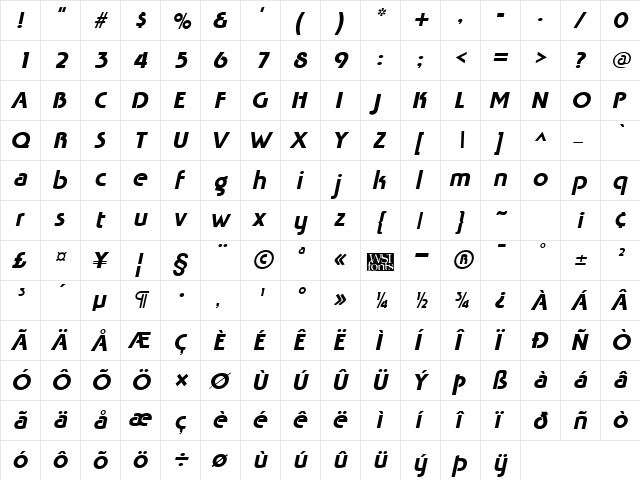
Tabatha Italic
Design Context for Tabatha Typeface
Tabatha is a composed and adaptable typeface that performs quietly and consistently across a wide range of design contexts. The dynamic lean of this cut emphasises speed and emphasis in any layout.
Pro Tip: Use Tabatha for emphasis, pull quotes, and subheadings where its slanted energy can add rhythm to the layout.